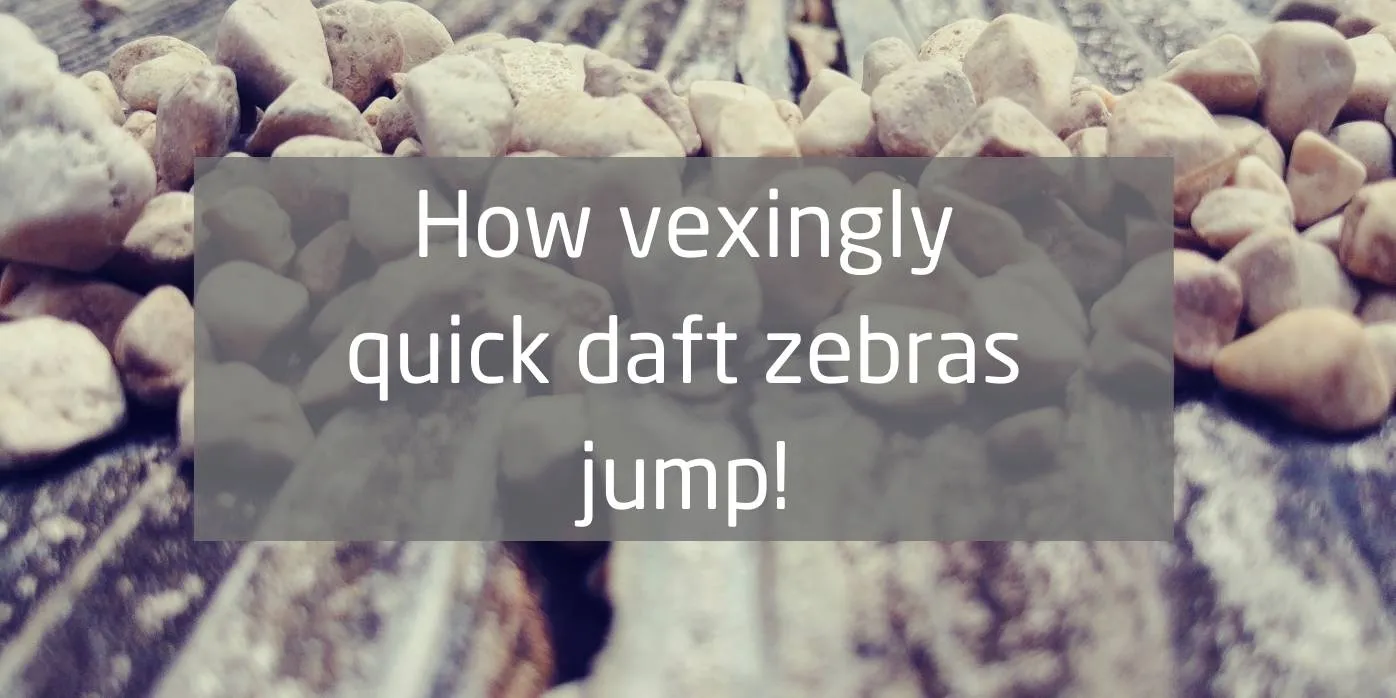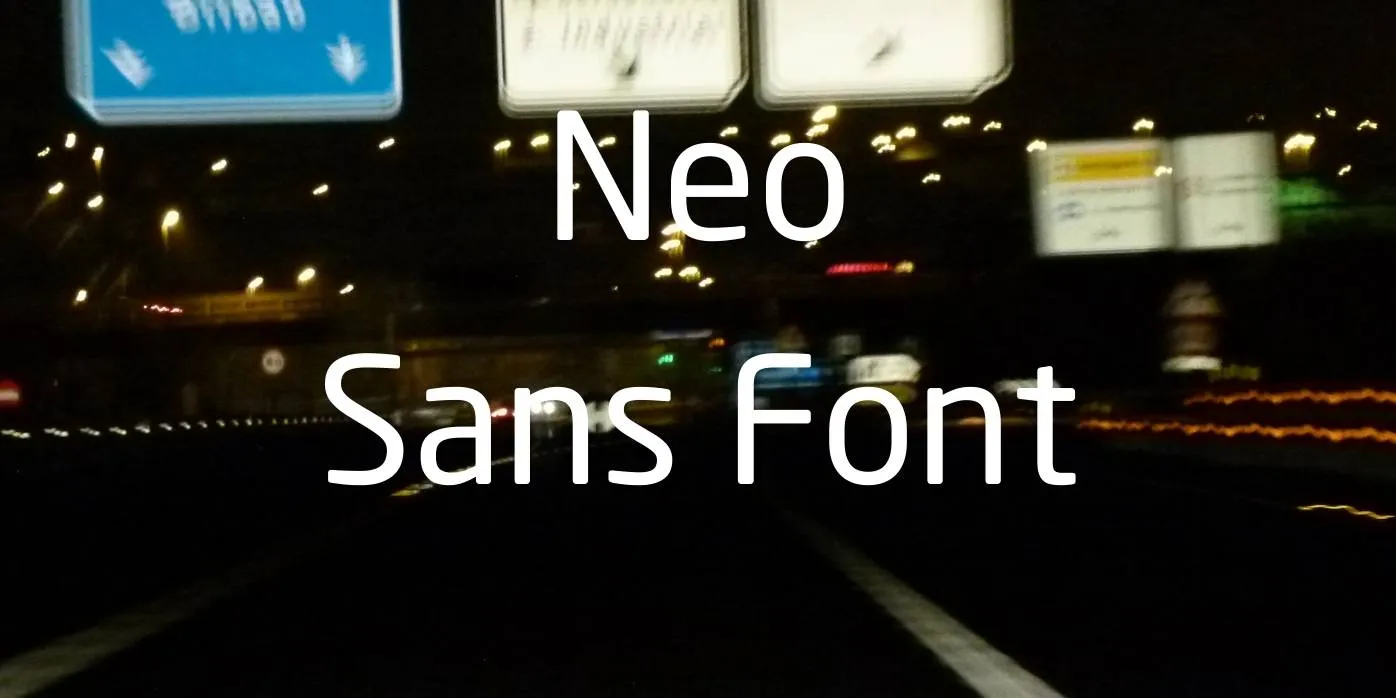
Neo sans Font
Neo sans Font Was developed and published by Sebastian Lester in the year 2004. This cozy typeface belongs to the Sans-Serif typeface. This classy font is a versatile typeface that is perfect for both headlines and body text. This fascinating font family has four weights regular, light, thin, and extra-bold and includes italics.
This tremendous typeface is a great typeface for use in all types of design projects. It can be used for everything from web design to corporate design. This font is very close to the Nunito Sans Font. This font family comes in unique features and Glyphs.
These styles can be used for multiple purposes. This staggering Font is perfect for both headlines and body text, as it has an extensive character set that includes small caps, case-sensitive forms, fractions, and superscripts.